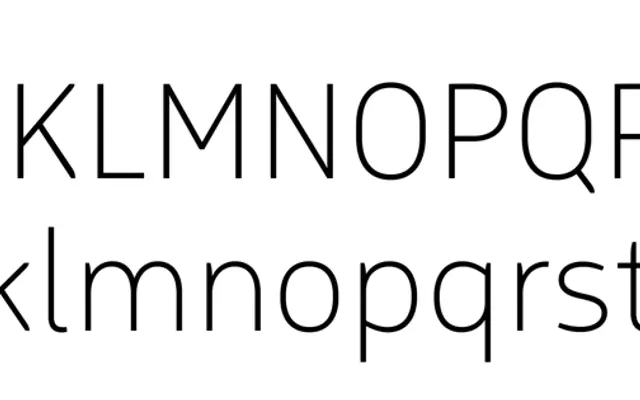
Logical
Bold Monday · Edgar Walthert · 2018
A humanist sans by Edgar Walthert built from a 13 px grid for screen rendering, with eight weights, true italics and an integrated icon system accessible via OpenType features.
Drawn on a 13 px grid to optimise rendering on standard-resolution displays, Logical combines a compact oval structure with open apertures and softly tapered terminals for warmth at screen sizes. Eight weights from Thin to Black each come with a true italic, and the family includes an extensive set of pictograms accessible by typing keywords between colons or via Stylistic Sets for English, German, Dutch and French. Smart underline features for interactive use cases and a broad Latin language set make it a practical choice for UI, signage and web typography.
Described as having a DIN-like technical structure paired with humanist warmth; oval, compact letterforms with open apertures and tapered terminals place it firmly in the humanist sans tradition.